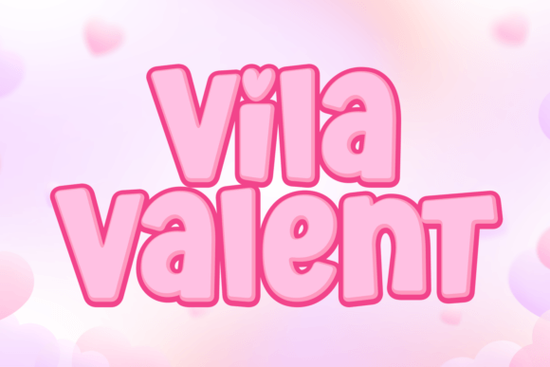
If you're looking for a display font that feels warm, approachable, and full of personality without being hard to read, Vila Valent is worth adding to your toolkit. Designed with a playful yet clear structure, it’s especially well-suited for projects where friendliness matters think greeting cards, kids’ party invites, classroom materials, or cheerful social media graphics.
Vila Valent strikes a nice balance: it’s whimsical enough to stand out, but not so quirky that it sacrifices legibility. That makes it a reliable choice when you want charm without confusion. Whether you’re hand-lettering a birthday banner or designing printable wall art for Etsy, this font brings a lighthearted tone that still feels intentional.
What kinds of projects work best with Vila Valent?
This font shines in contexts where warmth and simplicity are key. Here are a few natural fits:
- Greeting cards and invitations – Its rounded forms and open spacing make it feel personal and inviting.
- Craft templates – Ideal for vinyl cutting, embroidery digitizing, or sublimation designs aimed at kids or family themes.
- Small business branding – Great for bakeries, toy shops, or daycare centers that want a friendly visual identity.
- Educational printables – Teachers and homeschoolers often need fonts that are both engaging and easy for young readers to follow.
If you enjoy Vila Valent’s cheerful vibe, you might also like other display fonts with similar energy. For example, Cheer Font offers bold, bubbly letterforms perfect for celebration-themed designs. Or if you prefer something with a bit more bounce, Whimsy Wiggle adds gentle movement while keeping readability intact.
How does it compare to other playful display fonts?
Not all “fun” fonts are created equal. Some lean too heavily into decoration and become hard to read at small sizes. Others feel generic. Vila Valent avoids both pitfalls by maintaining consistent stroke width and generous letter spacing so even short phrases remain clear at a glance.
For contrast, consider Golden Varsity, which trades childlike softness for retro athletic flair, or Summer Vintage, which evokes nostalgia with sun-bleached textures. And if you need something slightly more stylized but still legible, Emoren blends modern curves with subtle hand-drawn details.
Each of these serves a different mood, but Vila Valent stands out when your priority is pure, uncomplicated friendliness.
Tips for using Vila Valent effectively
To get the most out of this font, keep a few practical points in mind:
- Avoid all-caps for long text. While uppercase letters look cute in headlines or single words, mixed case improves flow and readability for sentences.
- Pair it with a simple sans-serif. Fonts like Montserrat or Open Sans create clean contrast without competing for attention.
- Use generous line spacing. Its rounded shapes benefit from a little extra breathing room, especially in multi-line layouts.
- Limit use to short-form content. It’s a display font best for titles, labels, quotes, or callouts, not body paragraphs.
Who should consider this font?
Vila Valent isn’t trying to be everything to everyone and that’s a good thing. It’s particularly useful for:
- Crafters making custom mugs, tote bags, or nursery decor
- Print-on-demand sellers designing themed products for holidays, baby showers, or back-to-school
- Teachers and educators creating worksheets or classroom posters
- Small business owners building a brand that feels welcoming and human
If your work involves connecting with people through warmth and clarity not just aesthetics this font delivers without overcomplicating things.